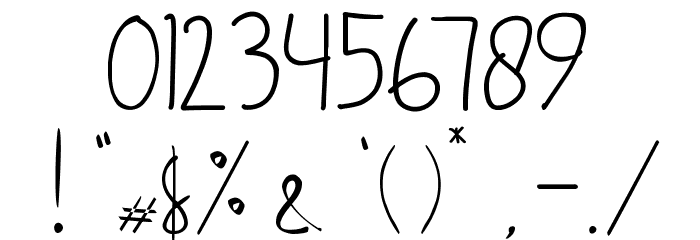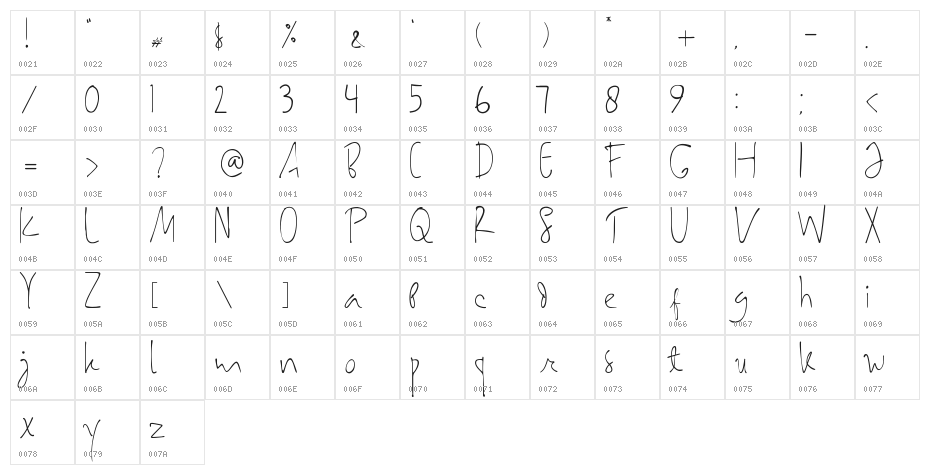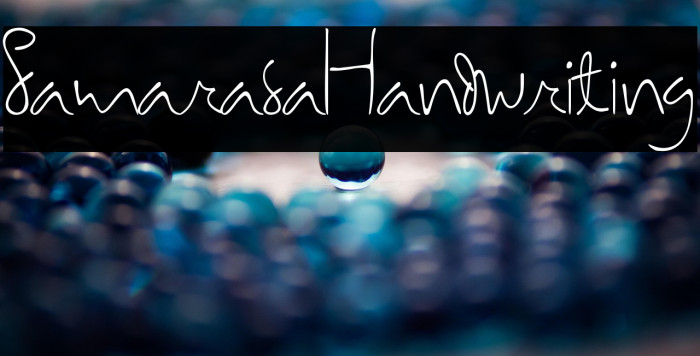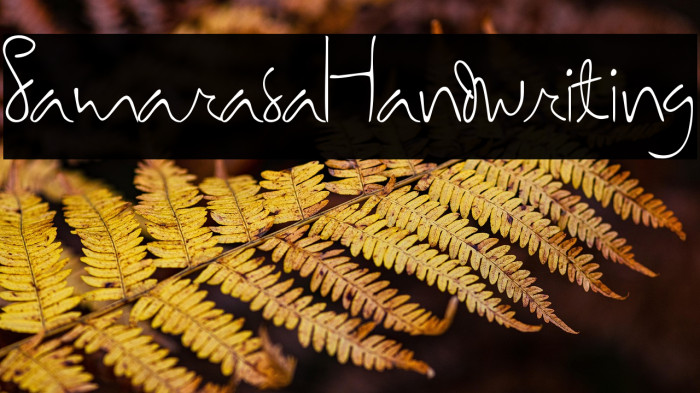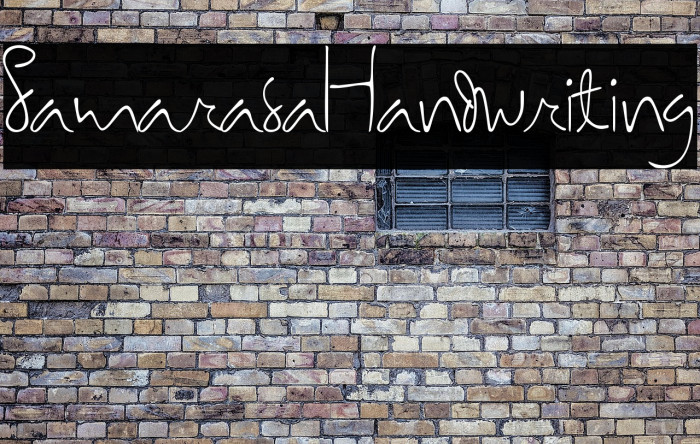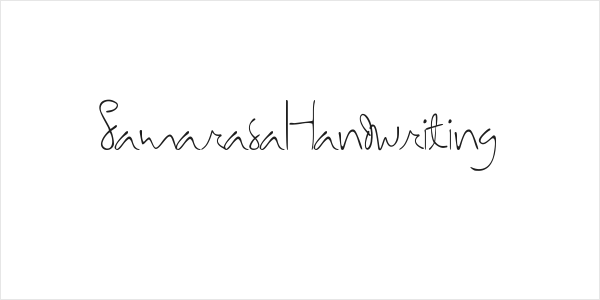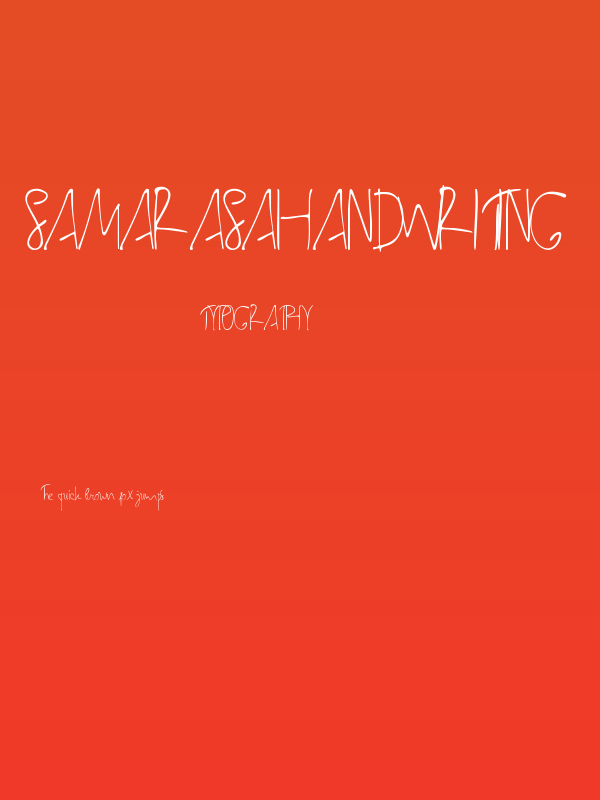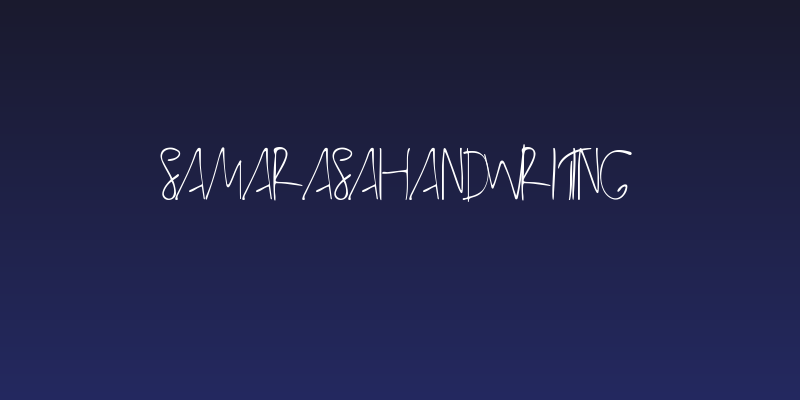
SamarasaHandwriting Font
SamarasaHandwriting Description
This font exhibits a playful and whimsical handwritten style, characterized by its irregular and flowing letterforms. The uppercase letters are tall and narrow, with a slight slant that adds a dynamic feel. The lowercase letters maintain a consistent style, with some characters featuring loops and curls that enhance the handwritten aesthetic. The numerals are distinct and maintain the same playful quality, ensuring readability while preserving the overall style. The special characters are creatively designed, fitting seamlessly with the rest of the font. This font's unique character makes it ideal for projects that require a personal touch.